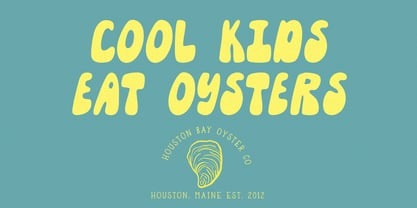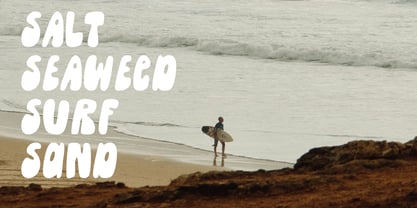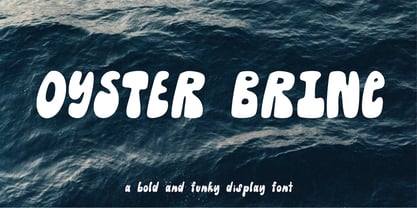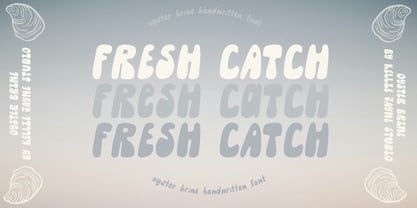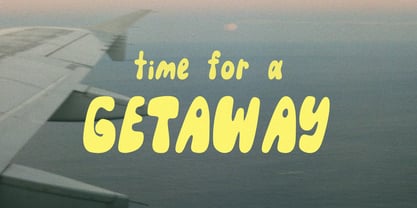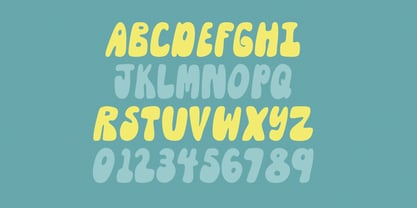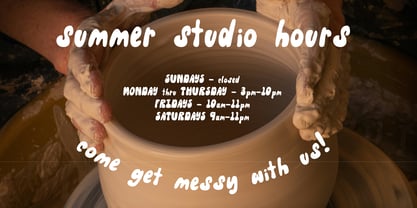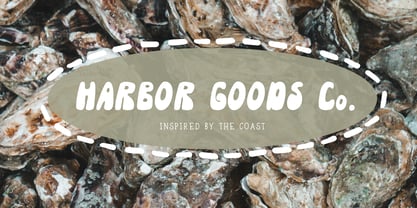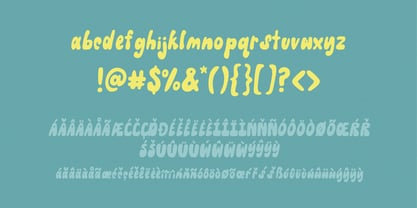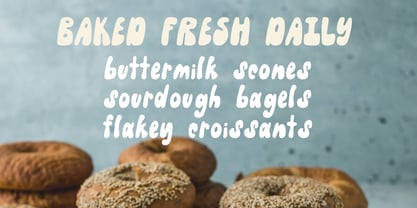
Oyster Brine
by Kellie Jayne Studio
The Oyster Brine Font Family was designed by Kellie McDonald and published by Kellie Jayne Studio. Oyster Brine contains 1 styles. More about this family
Oyster Brine is a bold and funky handwritten font brimming with salty personality and hand-drawn charm. With chunky letterforms and playful irregularity, it's perfect for branding, packaging, editorial headlines, social media graphics, and anything that needs a punch of personality.
Whether you're designing seaside-inspired labels, bold food packaging, quirky quotes, or handcrafted logos, Oyster Brine brings a raw, expressive energy to your work.
Add a little grit, a little groove, and a whole lot of boldness to your designs with Oyster Brine—drawn by hand and made to stand out.